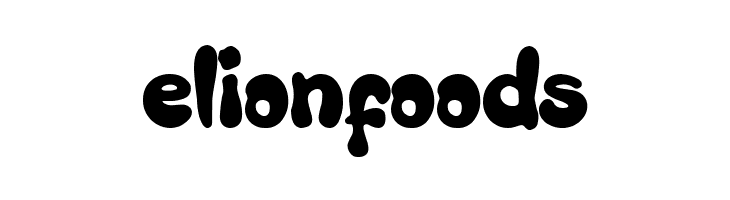
A playful, hand-drawn font with tall, narrow characters and whimsical details.
A distressed, grunge-style font with a textured, edgy appearance.
A whimsical Halloween-themed decorative font with playful illustrations.
A dynamic and elegant script font with smooth curves and balanced weight.
A bold, extruded font with a playful and dynamic style.
A playful, handwritten font with smooth curves and a casual style.
A playful, hand-drawn font with a whimsical and dynamic style.
A playful, bold, and rounded font with a whimsical style.
A bold, geometric font with a modern and playful style.
A bold, brush-style script font with a dynamic, handwritten feel.
A lively and energetic script font with flowing, cursive letterforms.
A bold, flowing script font with elegant, dynamic strokes.
An elegant, flowing script font with smooth, cursive lines and graceful curves.
A playful, hand-drawn font with irregular strokes and a whimsical style.
A bold, distressed font with a grunge aesthetic and uneven edges.
An artistic, calligraphic font with fluid shapes and dynamic strokes.
A bold, hand-drawn font with textured, sketch-like characters.
A playful and elegant handwritten script with flowing, connected letters.
An ornate, decorative font with intricate patterns and flourishes.
An elegant and flowing script font with graceful curves and fluid strokes.
A bold, playful script font with interconnected characters and smooth curves.
An elegant, decorative font with intricate floral embellishments.
Tall, thin, whimsical handwritten script with exaggerated verticals.
An elegant script font with fluid, flowing lines and sophisticated curves.
A playful, rounded font with a bold and bubbly appearance.
A playful, bold font with rounded, bubble-like characters and a retro-modern vibe.
A bold, playful font with rounded, cartoon-like characters.
Casual handwritten font with brush-like strokes.
A playful, bold font with rounded, bubbly characters perfect for creative projects.
A bold, textured font with a hand-painted, artistic style.
An elegant serif font with high contrast and sharp serifs.
A sleek, italicized font with a modern and sophisticated style.
A reverse italic font with sharp, clean lines and a modern twist.